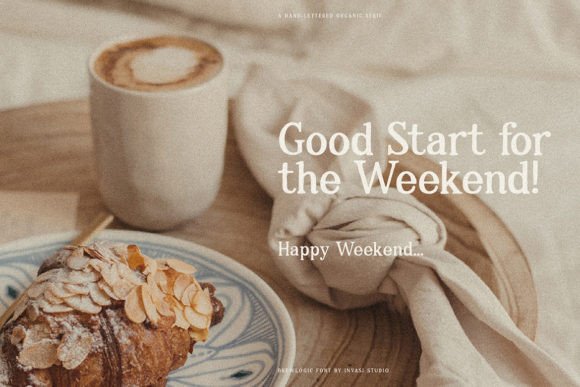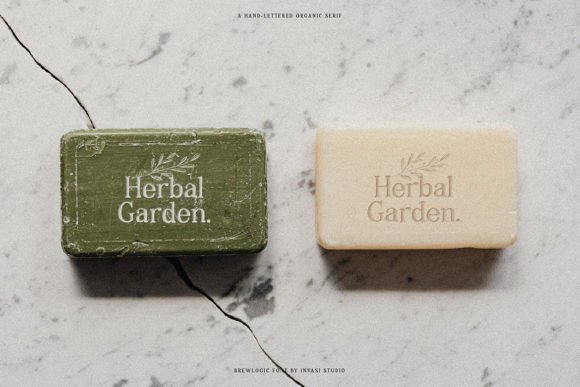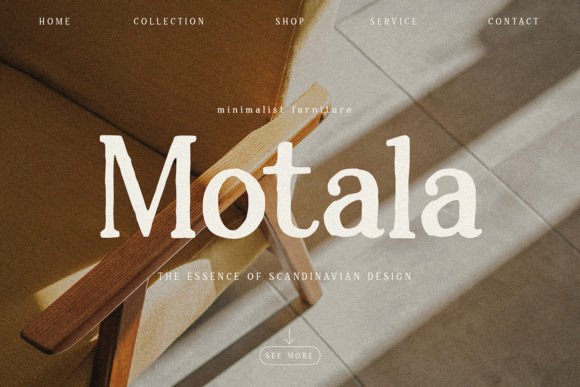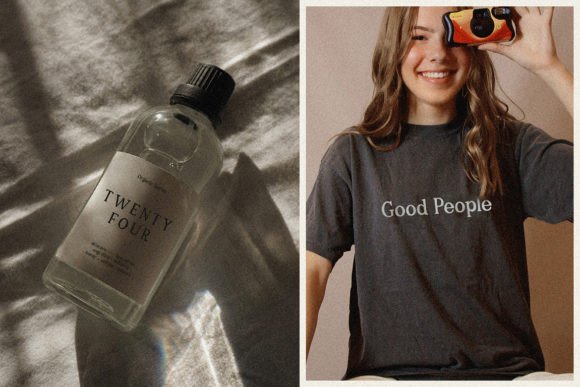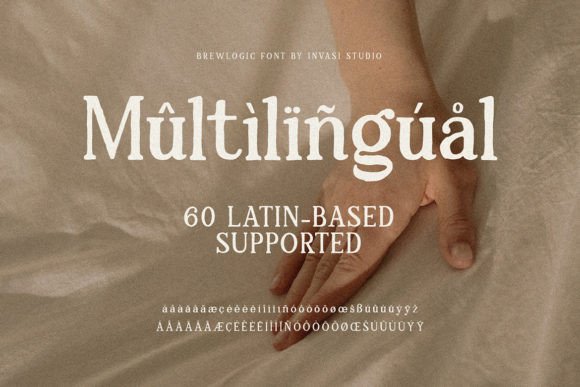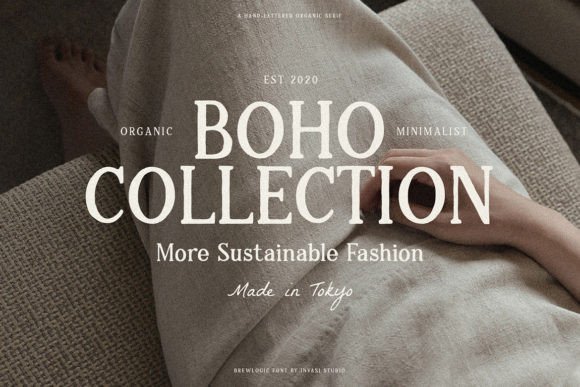
Brewlogic Font: The Perfect Cup of Coffee for Your Designs
Are you a designer or crafter looking for a unique and stylish font to elevate your creations? Look no further than the Brewlogic Font! This hand-lettered serif display font is the perfect addition to any design, and we’re excited to dive into its features and benefits.
A Deliciously Hand-Lettered Font
The Brewlogic Font is a carefully crafted, hand-lettered serif display font that exudes warmth and character. Its unique blend of modern and traditional elements makes it perfect for a wide range of design applications, from packaging and branding to signage and digital media.
With its smooth, flowing lines and elegant serifs, the Brewlogic Font is sure to add a touch of sophistication and style to any design. Whether you’re creating a logo, label, or advertisement, this font is sure to make your work stand out from the crowd.
The Brewlogic Font is a versatile font that’s perfect for designers and crafters of all levels. Whether you’re a seasoned professional or just starting out, this font is easy to use and adaptable to a wide range of design styles.
For designers, the Brewlogic Font is a great choice for clients looking for a unique and eye-catching font. Its hand-lettered style adds a personal touch to any design, making it perfect for branding, packaging, and advertising projects.
For crafters, the Brewlogic Font is a great way to add a professional touch to your handmade products. Use it to create beautiful labels, tags, and packaging that will make your products stand out from the crowd.
Showcase Your Great Taste
One of the best ways to showcase your great taste is by using the Brewlogic Font on tags and packaging. Whether you’re creating handmade products or designing labels for a client, this font is sure to add a touch of elegance and sophistication.
Imagine using the Brewlogic Font to create beautiful labels for your homemade jams, honey, or craft beer. The font’s elegant serifs and smooth lines will add a touch of class to any product, making it perfect for farmers’ markets, craft fairs, and online marketplaces.
Key Features of the Brewlogic Font
- Hand-lettered serif display font
- Unique blend of modern and traditional elements
- Smooth, flowing lines and elegant serifs
- Perfect for branding, packaging, signage, and digital media
- Easy to use and adaptable to a wide range of design styles
Ready to grab your cup of coffee and enjoy the Brewlogic Font? This organic display font is the perfect addition to any design, and we’re confident you’ll love it. With its unique blend of style and versatility, the Brewlogic Font is sure to become a staple in your design toolkit.
In conclusion, the Brewlogic Font is a must-have for designers and crafters looking for a unique and stylish font. Its hand-lettered serif display style, smooth lines, and elegant serifs make it perfect for a wide range of design applications.
Whether you’re creating labels, tags, packaging, or digital media, the Brewlogic Font is sure to add a touch of sophistication and style. So grab your cup of coffee, download the font, and start creating beautiful designs that showcase your great taste!